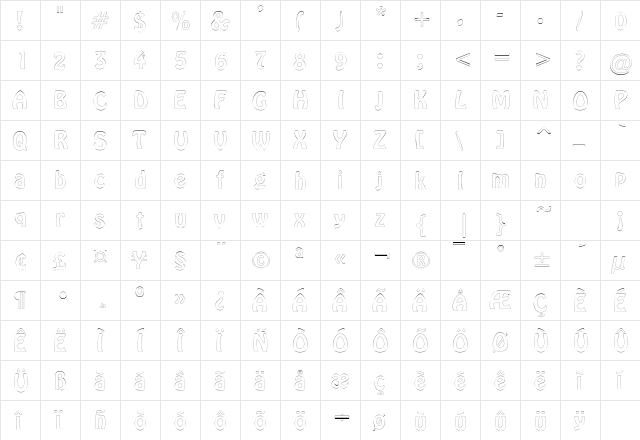
GuthrieOutline Regular
Design Context for GuthrieOutline Typeface
GuthrieOutline is built around its visual character rather than neutral utility — its distinctive forms are designed to make an impression at display sizes.
Font Pairing: Pair with a clean neutral sans-serif for body copy to let GuthrieOutline's character lead without overwhelming the composition.
Pro Tip: Treat GuthrieOutline as the centrepiece of your typographic hierarchy. One strong heading set in a decorative face can carry an entire layout.